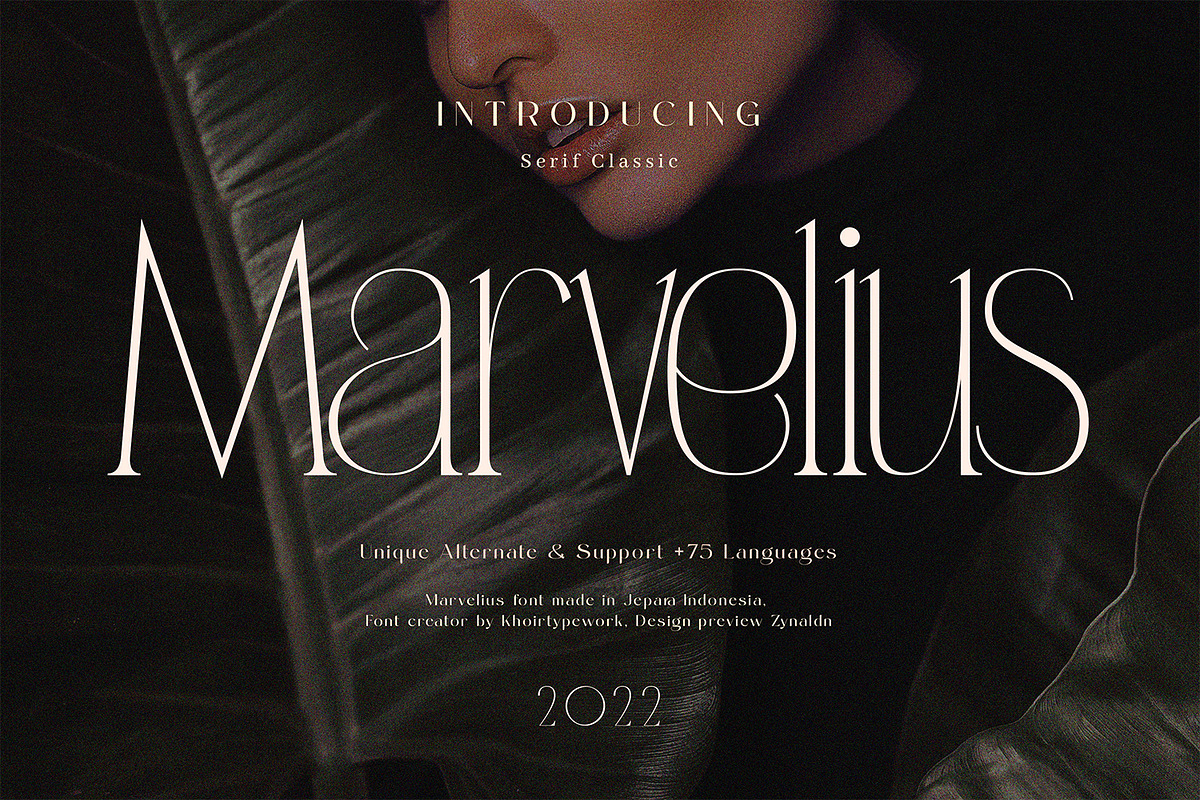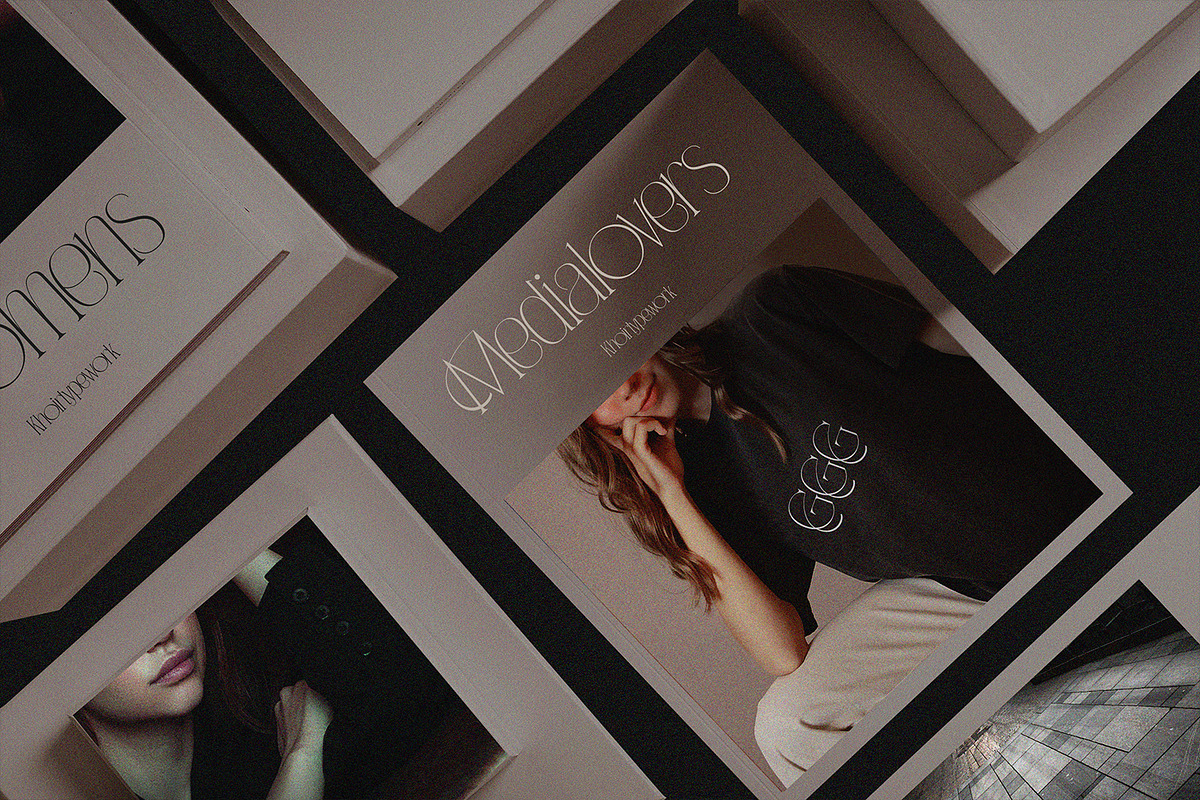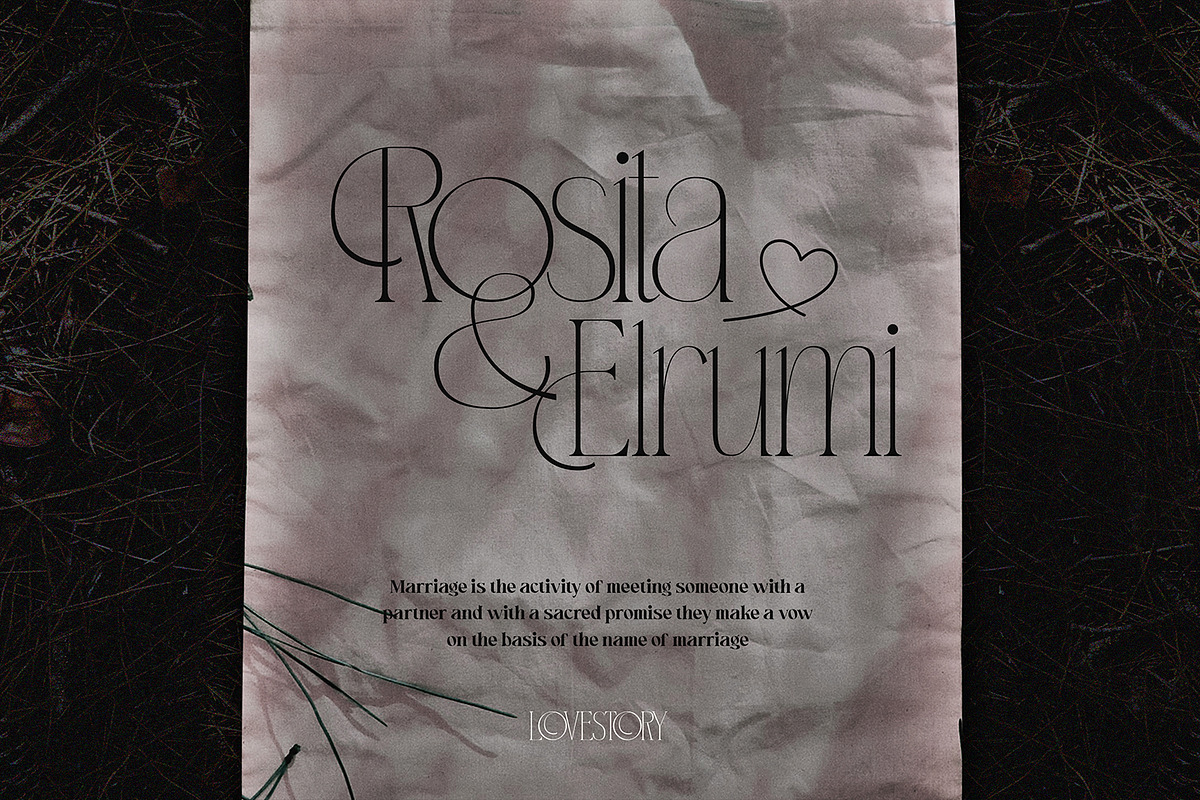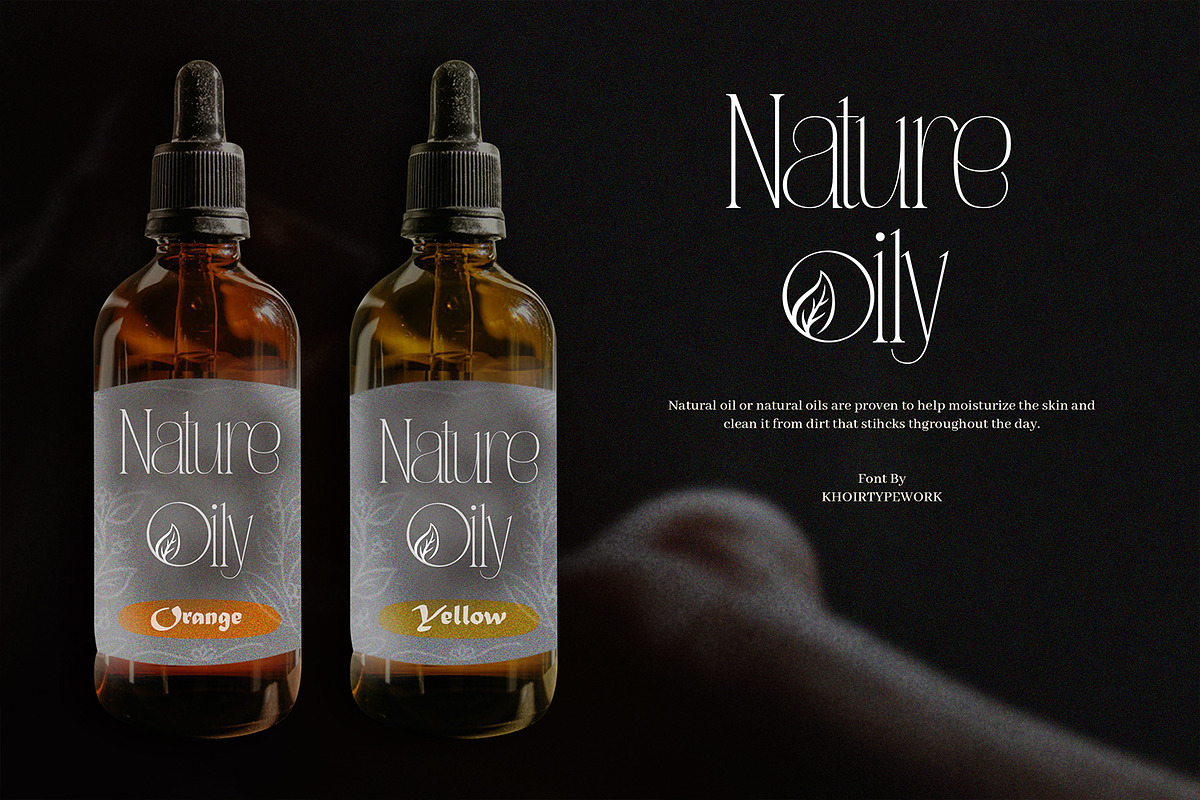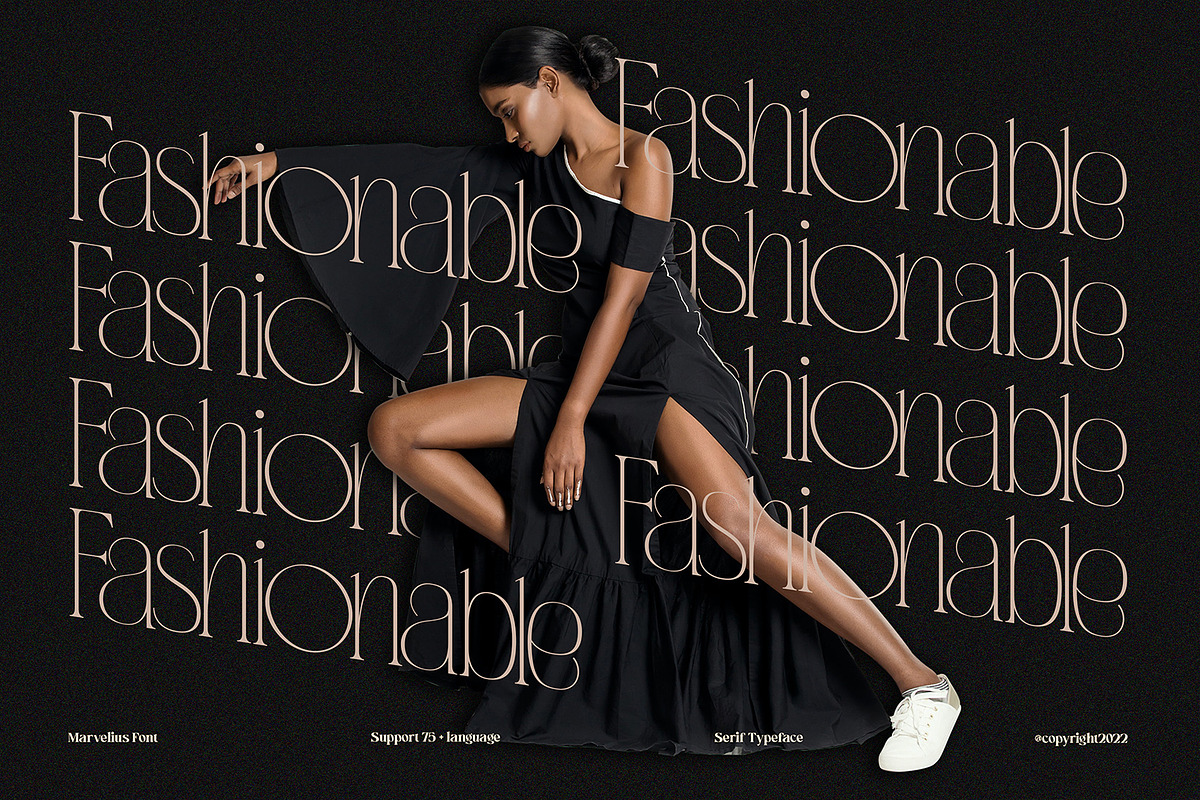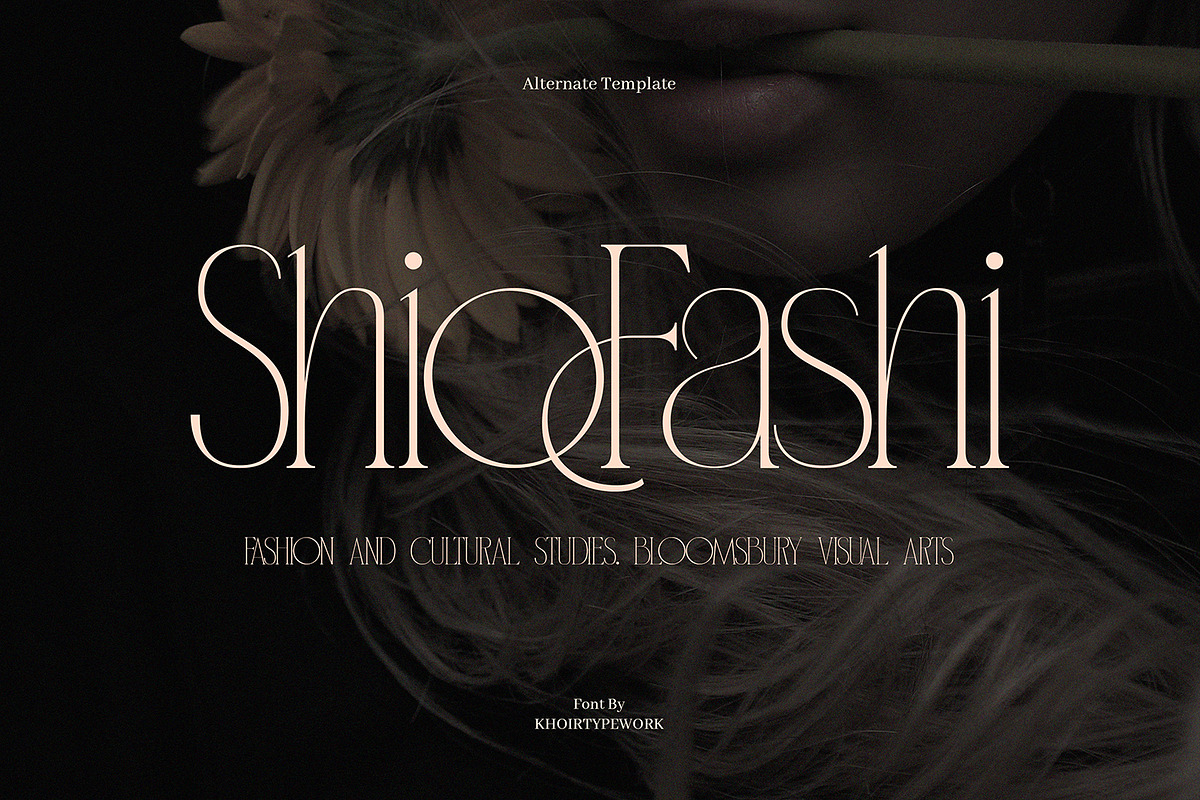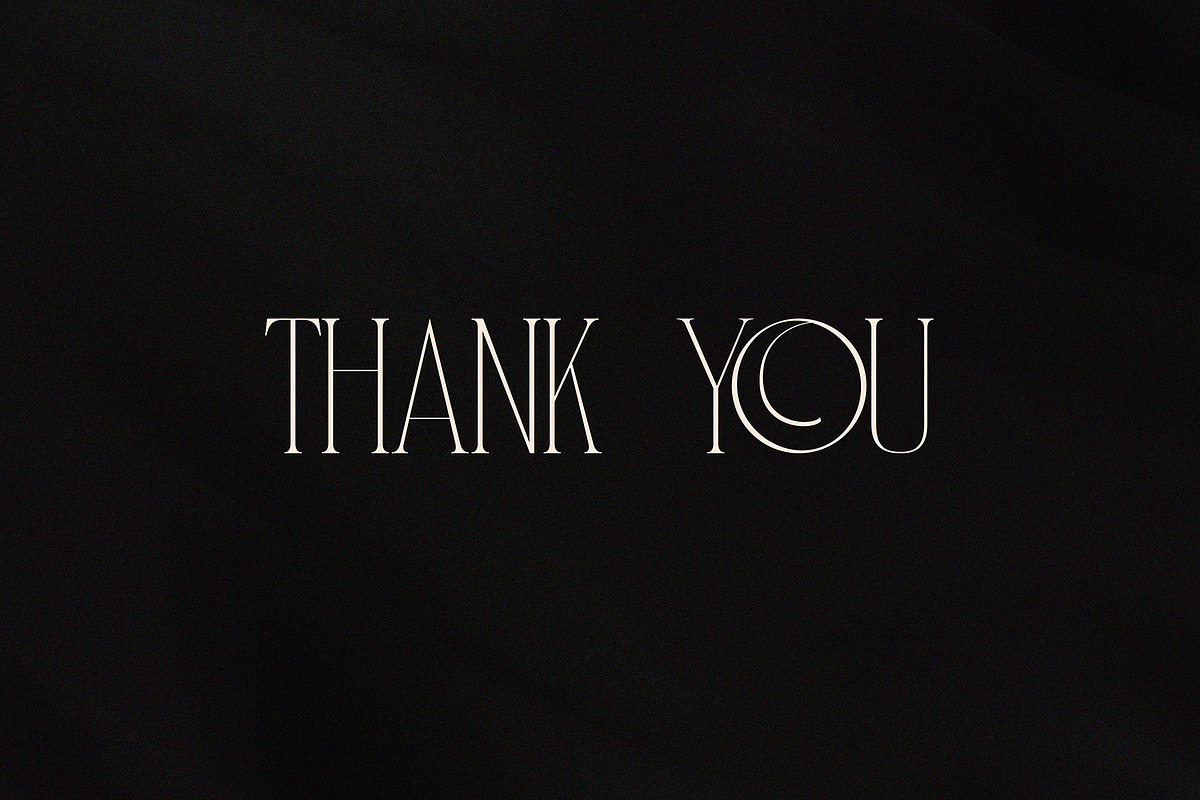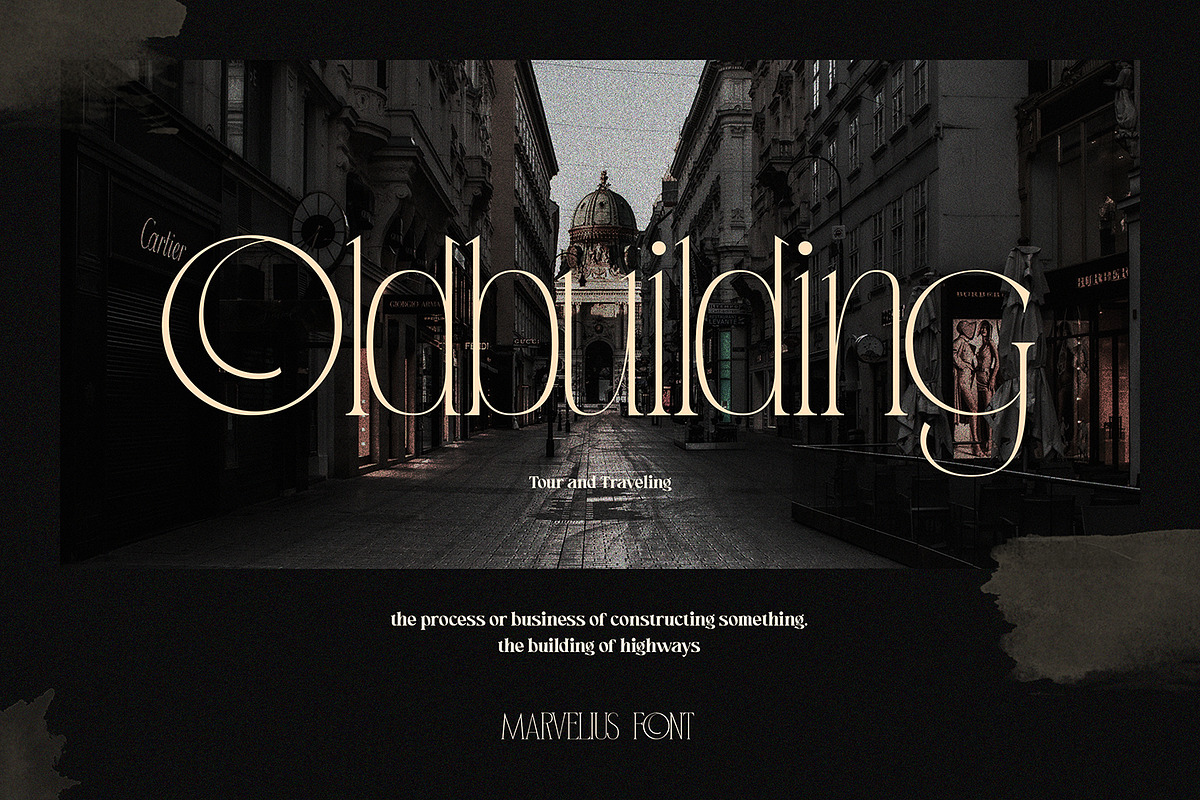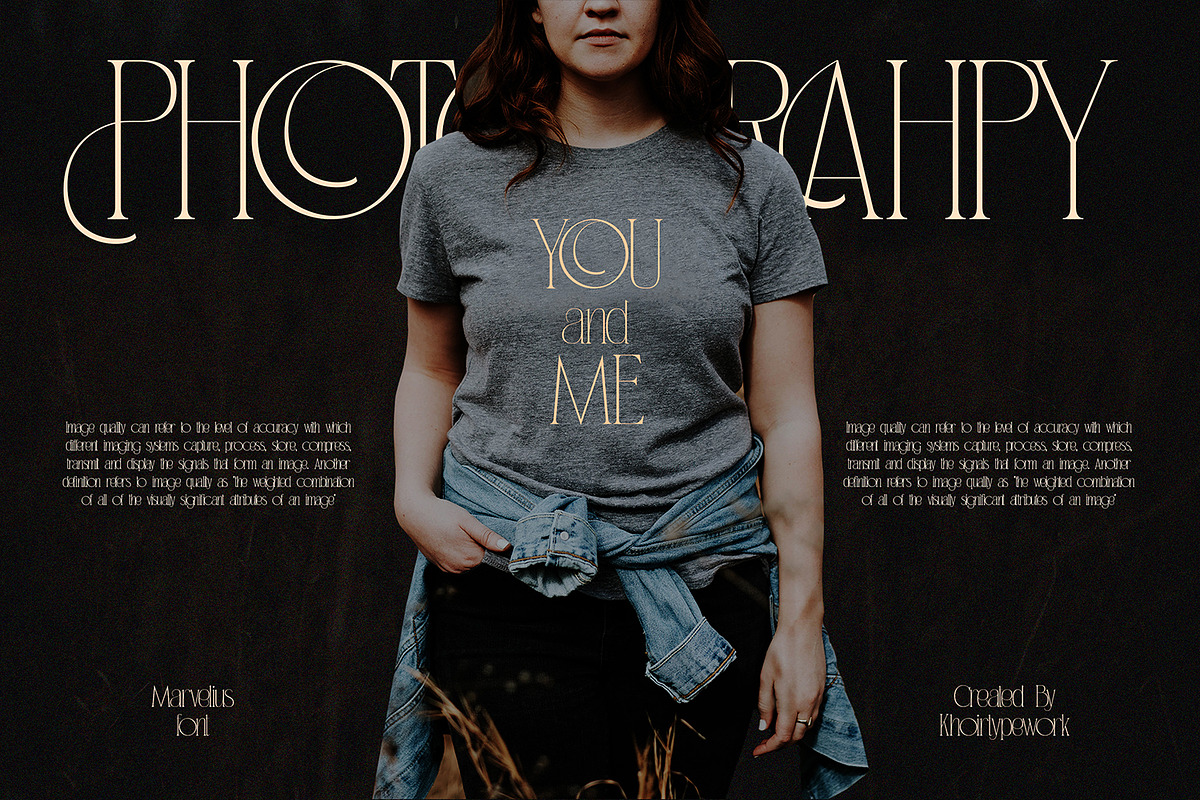
Marvelius - Serif Classic
Marvelius - An elegant style serif font, relying on the elegance of each letter, has an aesthetically pleasing alternative that makes users feel a different sensation when applied to each of your projects.
- Uppercase Characters
- Lowercase Characters
- Support 75+ Language